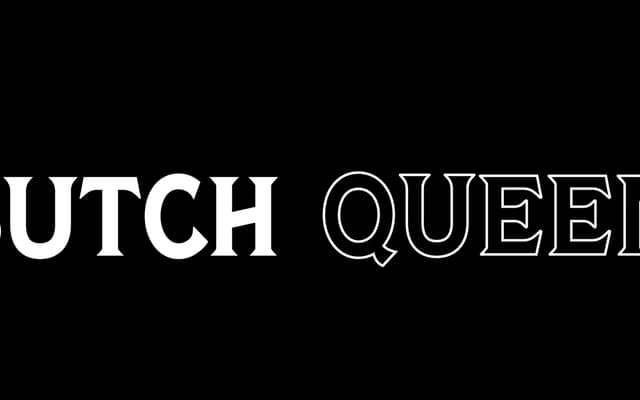
Butch Queen
A two-style engraved display face balancing feminine and masculine qualities, suited to badge work, packaging and typographic lockups.
Comes in filled and outlined cuts, giving designers a quick pairing for layered or two-colour treatments. The engraved aesthetic lends itself to heritage-adjacent badge design and packaging, while its dual-gendered character keeps it from reading as purely period or nostalgic. A single-weight family priced for independent and small-studio use.
An engraved-style display typeface with both filled and outlined variants, suited to badge, packaging and lockup work rather than extended text setting.